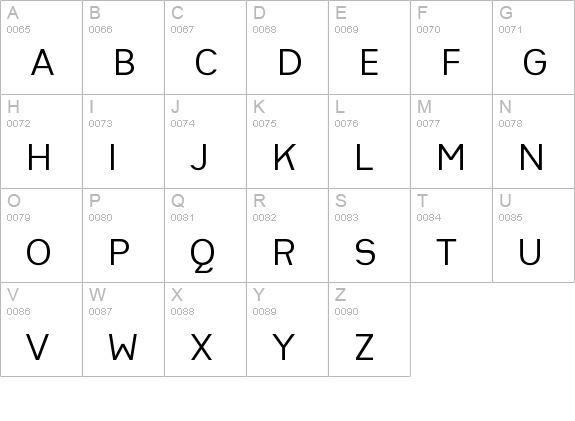
HeimatSans-Regular is the standard, neutral variant in the HeimatSans typeface family \xE2\x80\x94 well suited to general body text, paragraphs, and standard typographic work.
HeimatSans-Regular is a versatile and modern font that combines clean lines with a touch of sophistication. Perfect for a wide range of design projects, this typeface exudes a sense of professionalism and elegance. Its balanced proportions and distinctive letterforms make it ideal for both digital and print applications. And the best part? HeimatSans-Regular is completely free! You can easily download this font at FontsMarket.com and start using it in your designs right away. Whether you're working on a website, branding materials, or any other creative project, HeimatSans-Regular is sure to add a touch of style and refinement. Don't miss out on this fantastic opportunity to enhance your designs with this high-quality font.